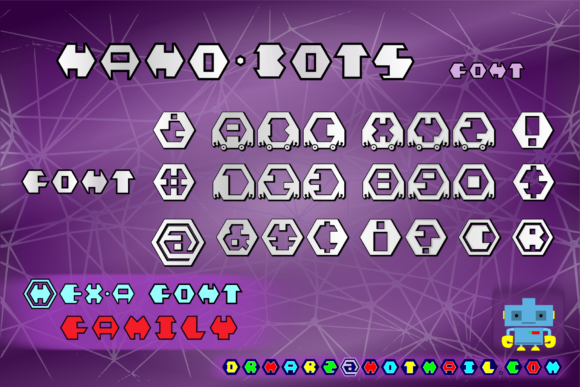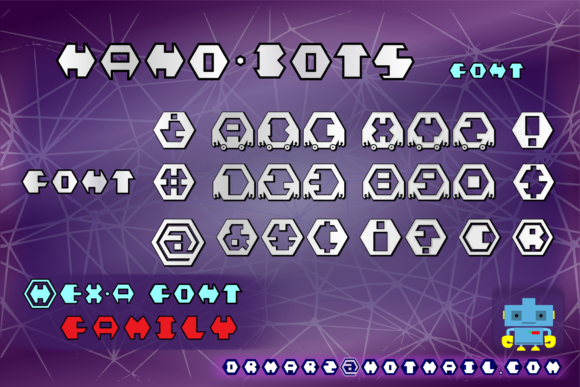
Introduction to Nano Bots Font
Nano Bots is a unique and interesting decorative font.
A little bit quirky, this font looks incredibly adept on a wide variety of contexts .
Key Features of Nano Bots Font